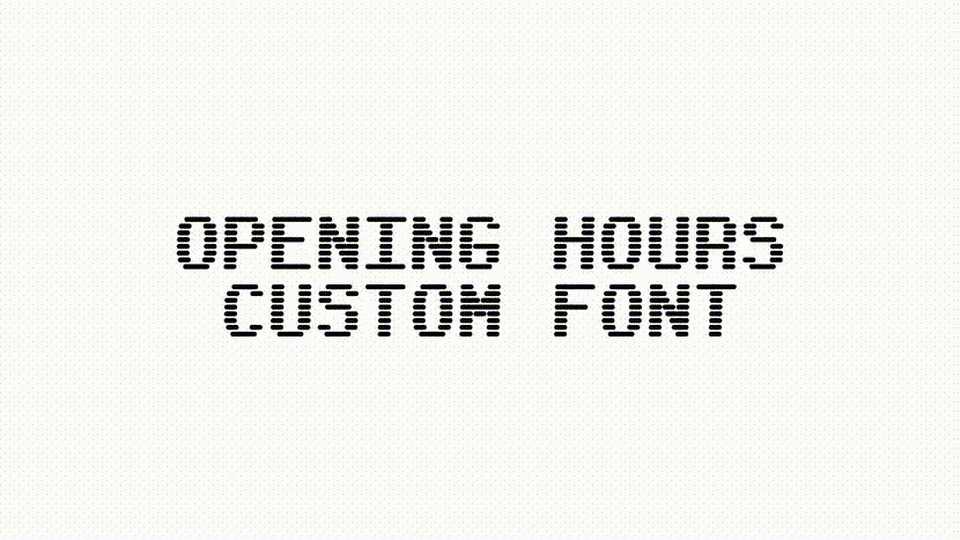
Download Opening Hours Mono font, a custom variable monospace typeface created to work both on a branding level and for detailed graphics. The font has 3 axes ranging from dot matrix to 80s speedboat.